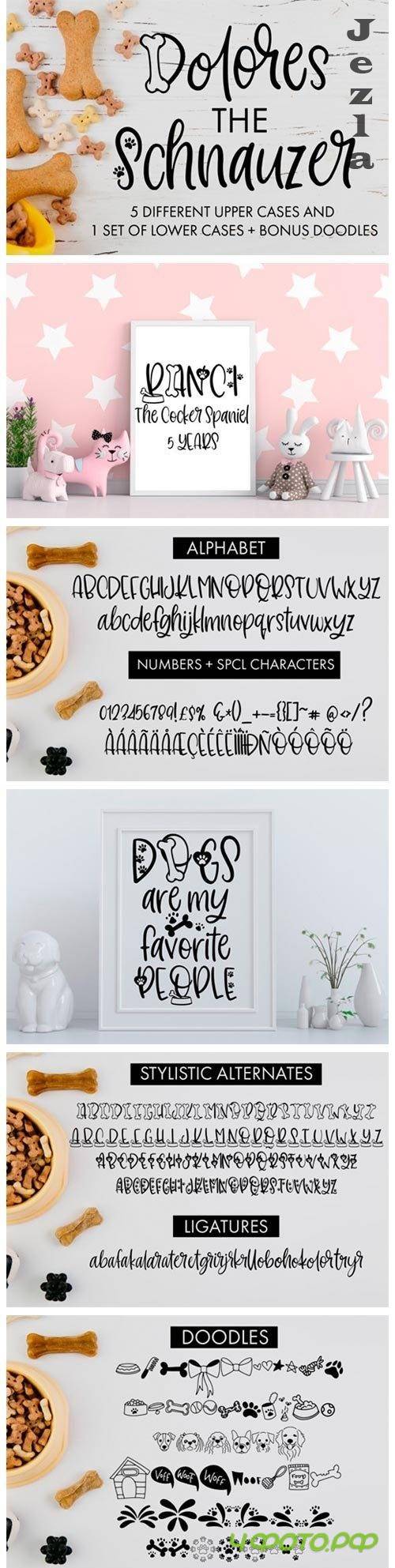
Dolores the Schnauzer Font
Dolores The Schnauzer is a cute and casual display font with an incredibly friendly feel. Whether you’re looking for fonts for Instagram or calligraphy scripts for DIY projects, this font will turn any creative idea into a true piece of art!